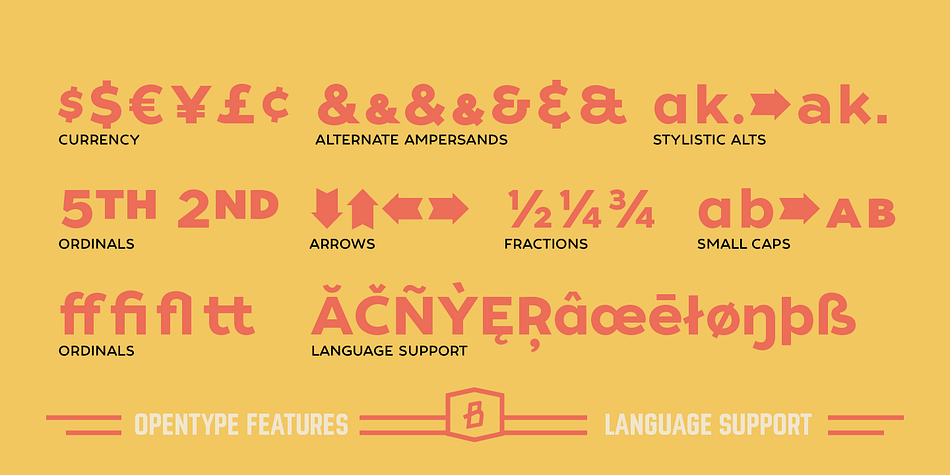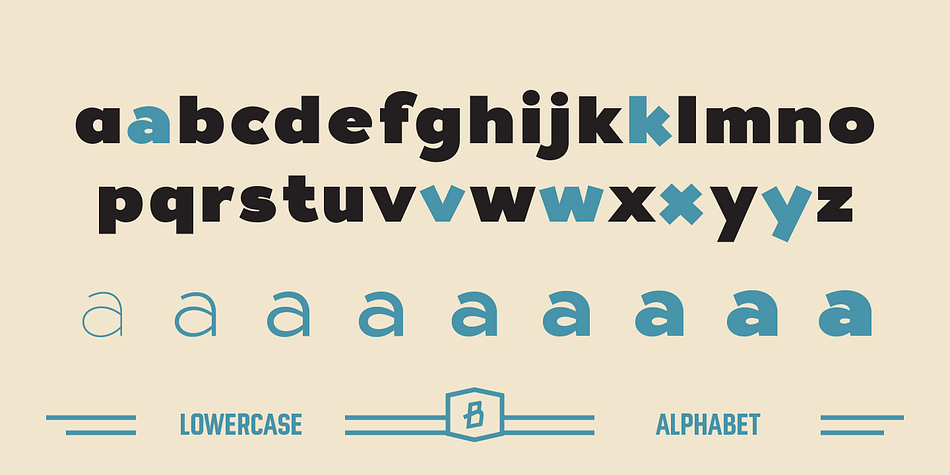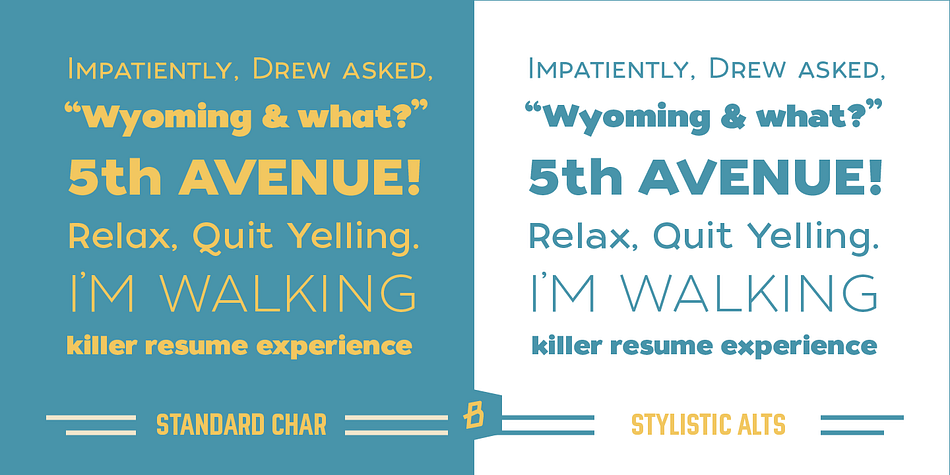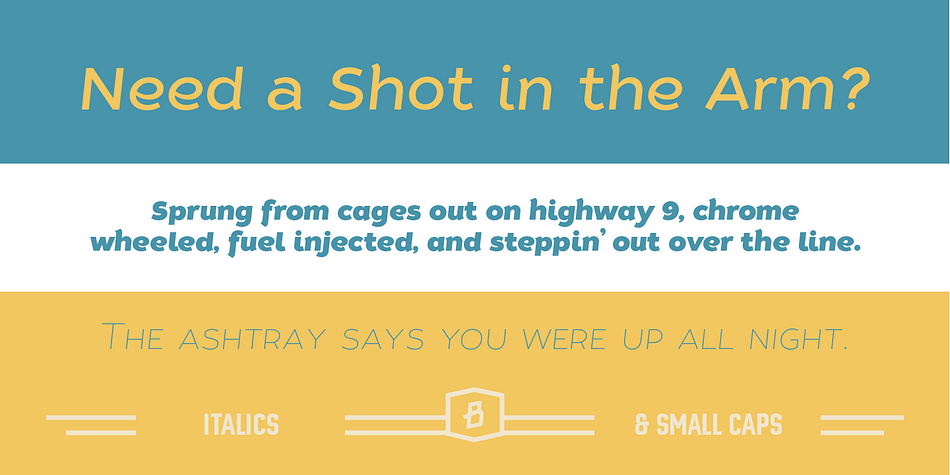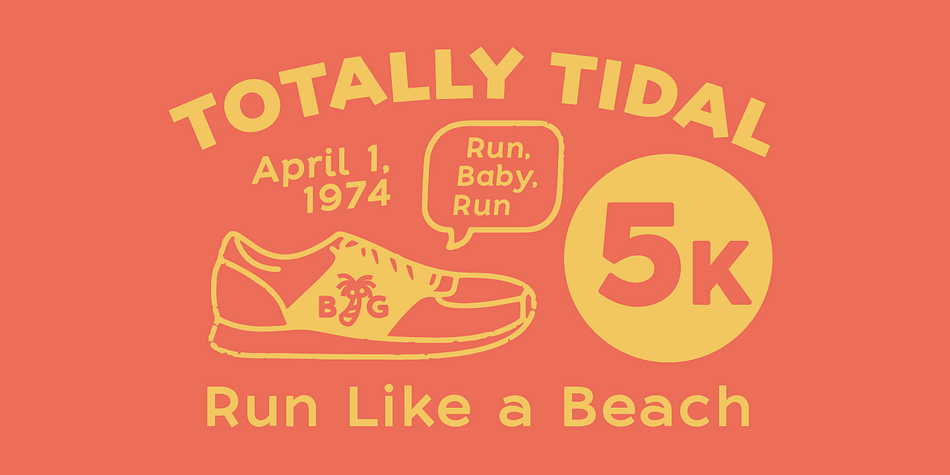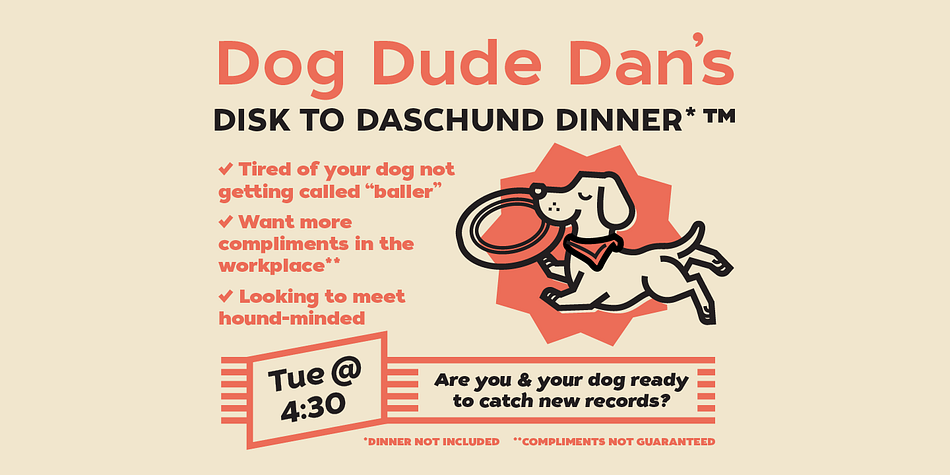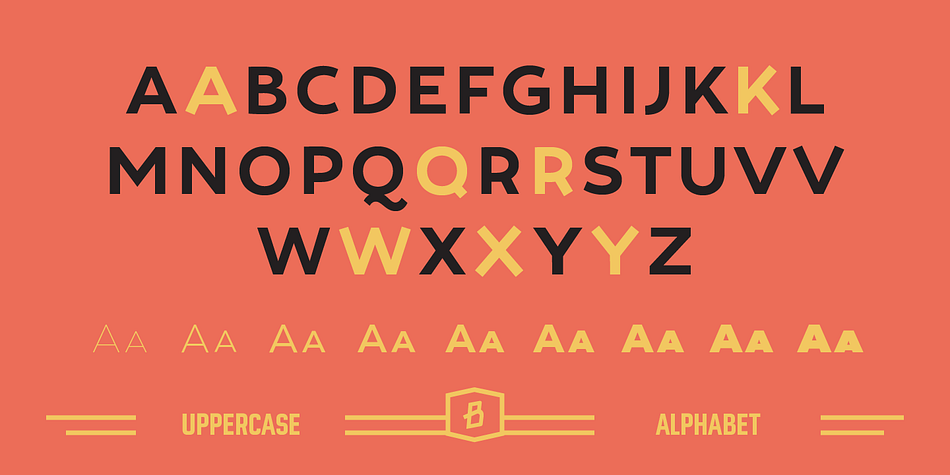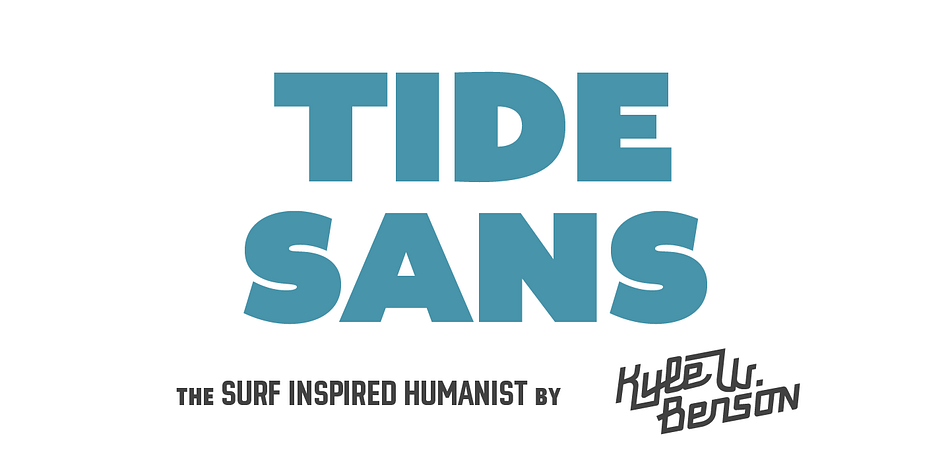
Tide Sans is a sans serif font family. This typeface has eighteen styles and was published by Kyle Wayne Benson.
Tide Sans’ fresh, carefree, look makes you almost forget that you’re staring at a monitor and not on the beach. When Tide Sans is not surfing, you’ll find it at community college parties, giving free henna tattoos, or tossing a Frisbee to the dachshund next door.
The Tide Sans family includes beautiful italics and an equally affable condensed set. Tide Sans does the work for you by providing a ridiculously large stylistic alternates set, fine tuned small caps, and a whole beach of alternate (amper)sands to feel between your toes.